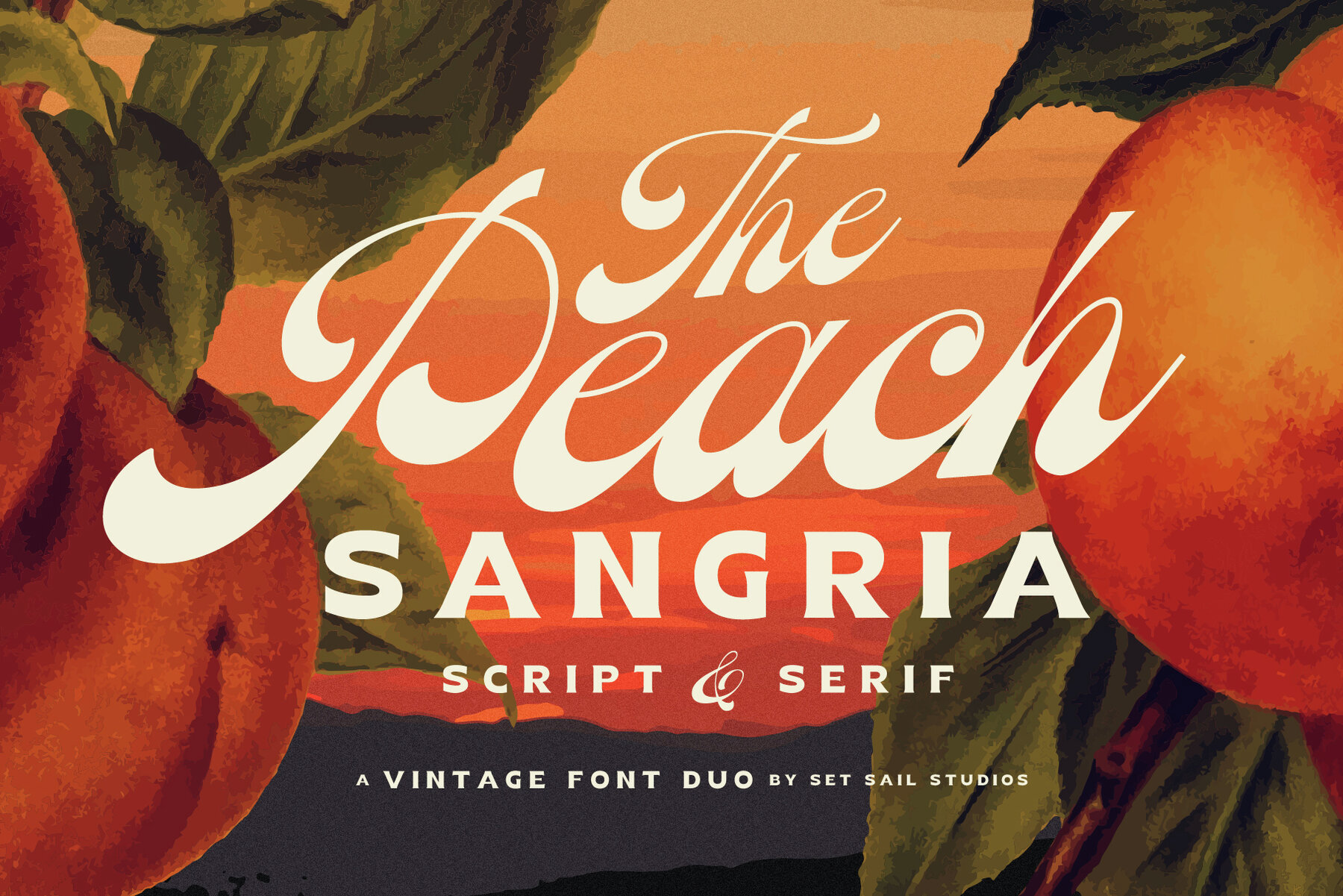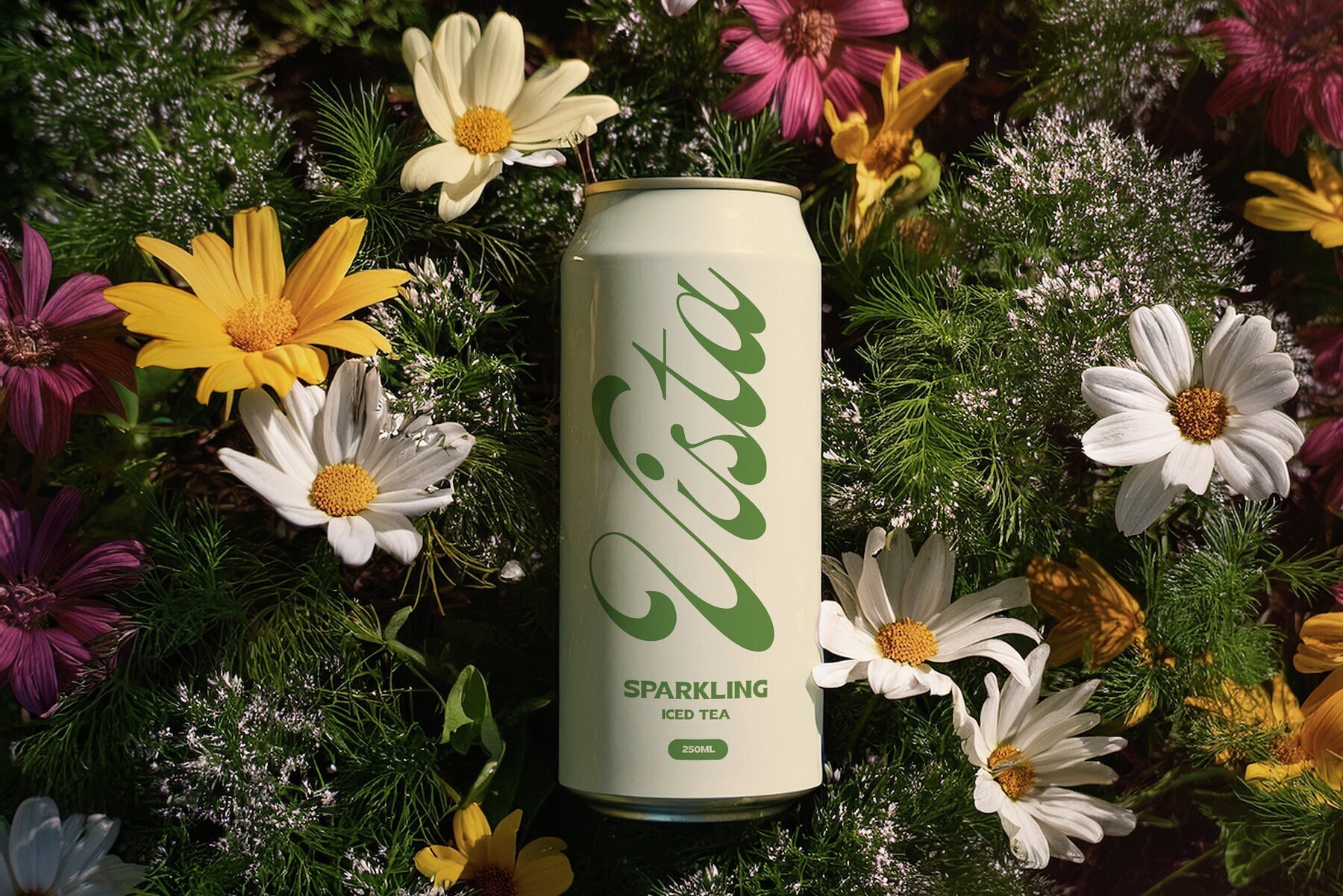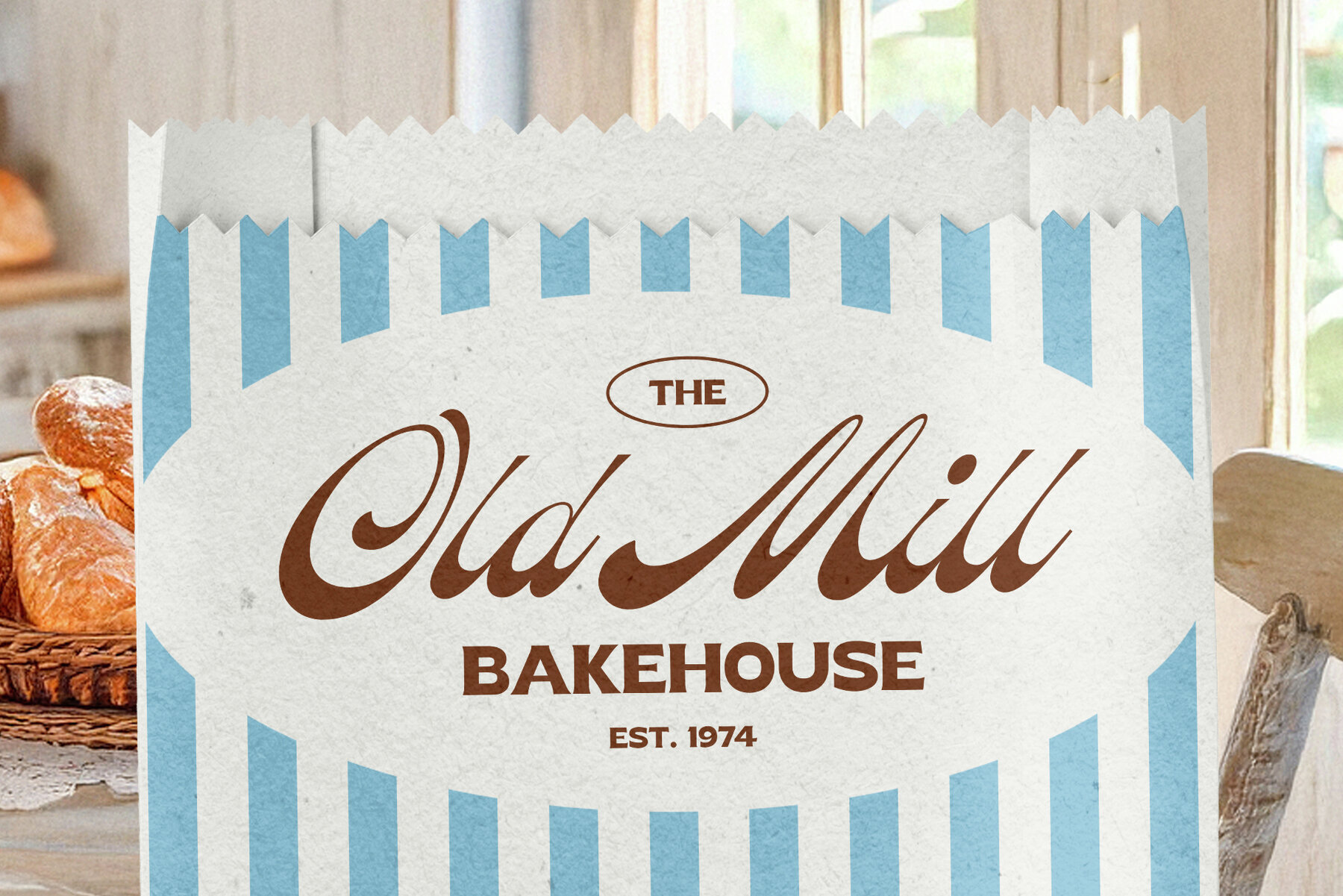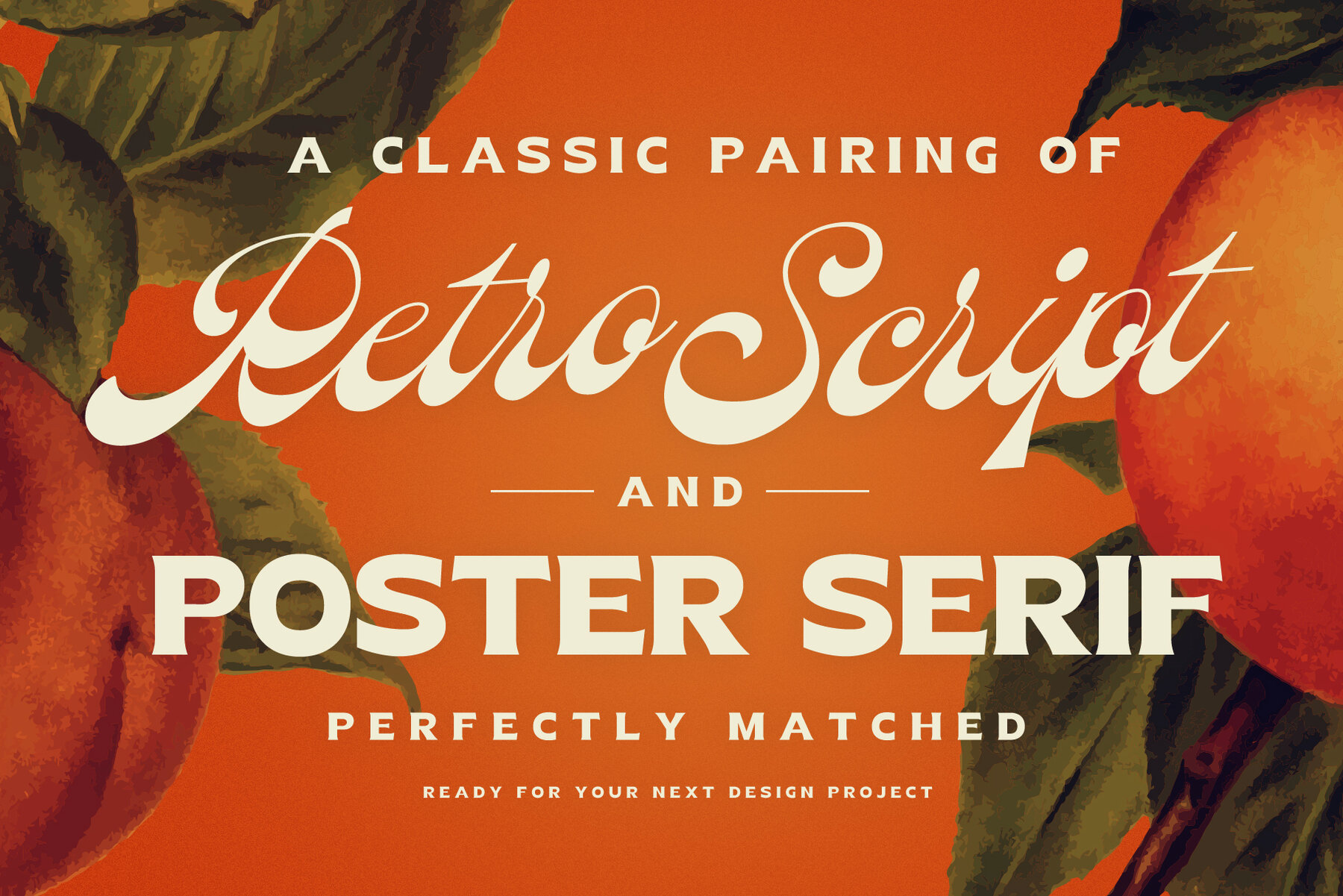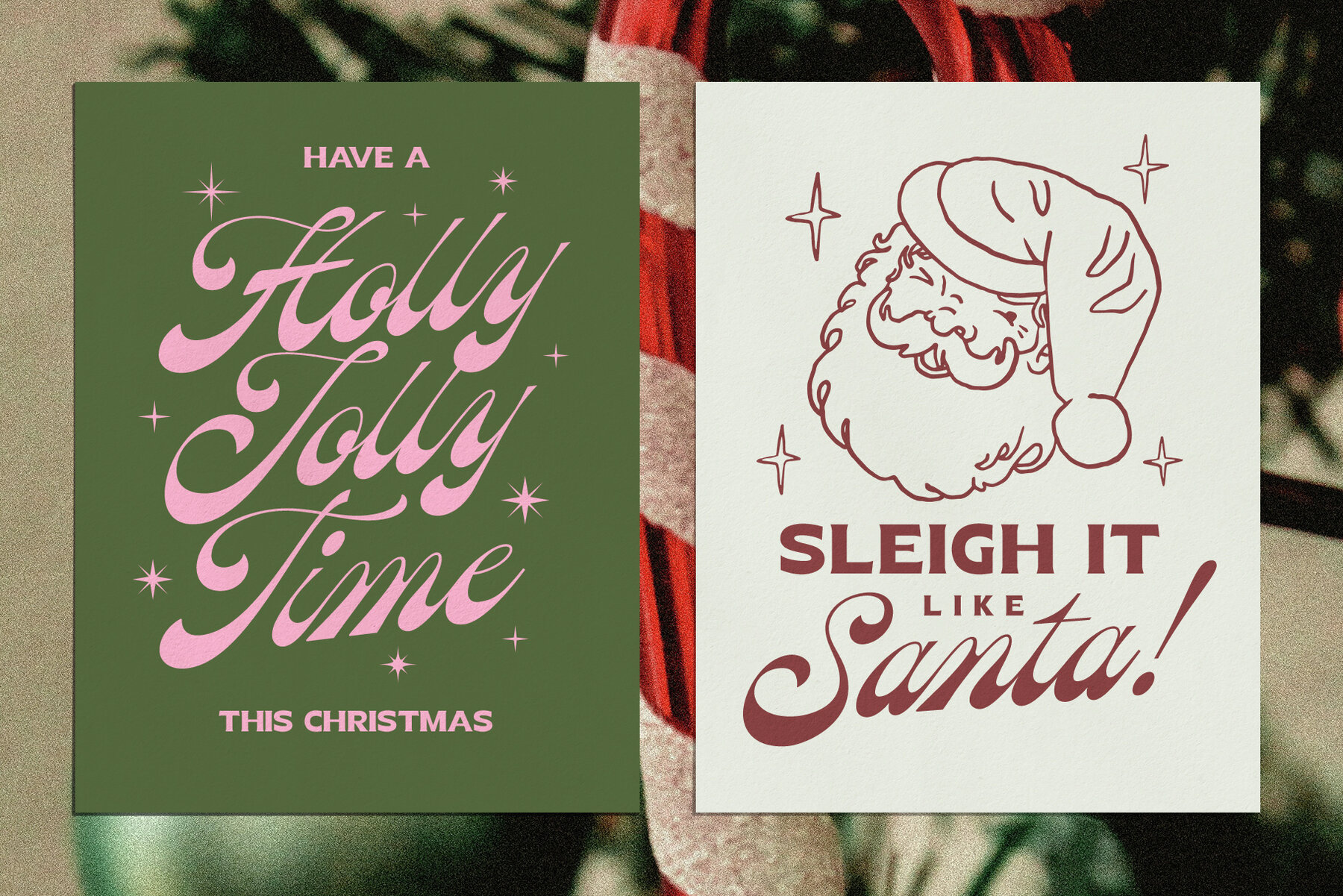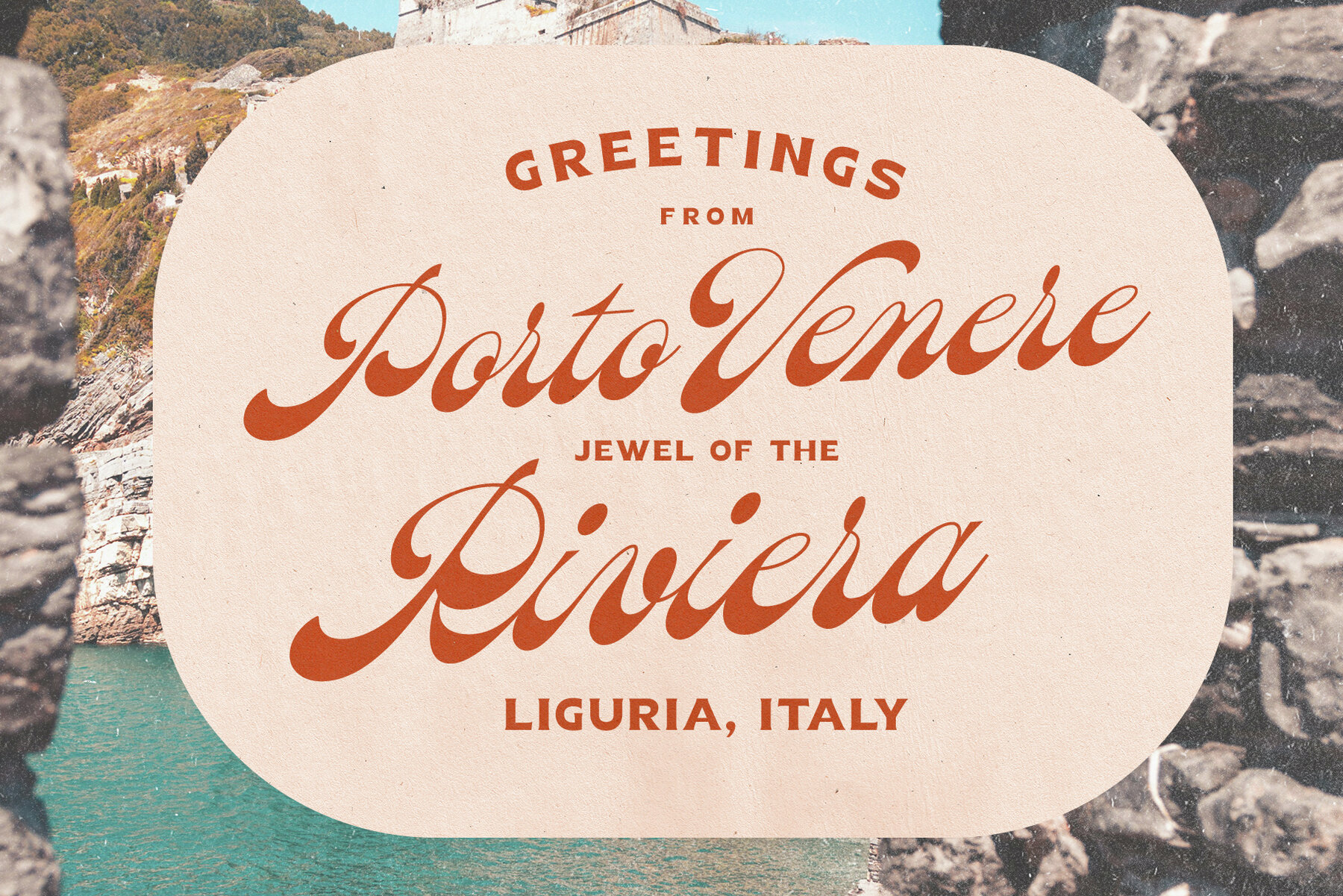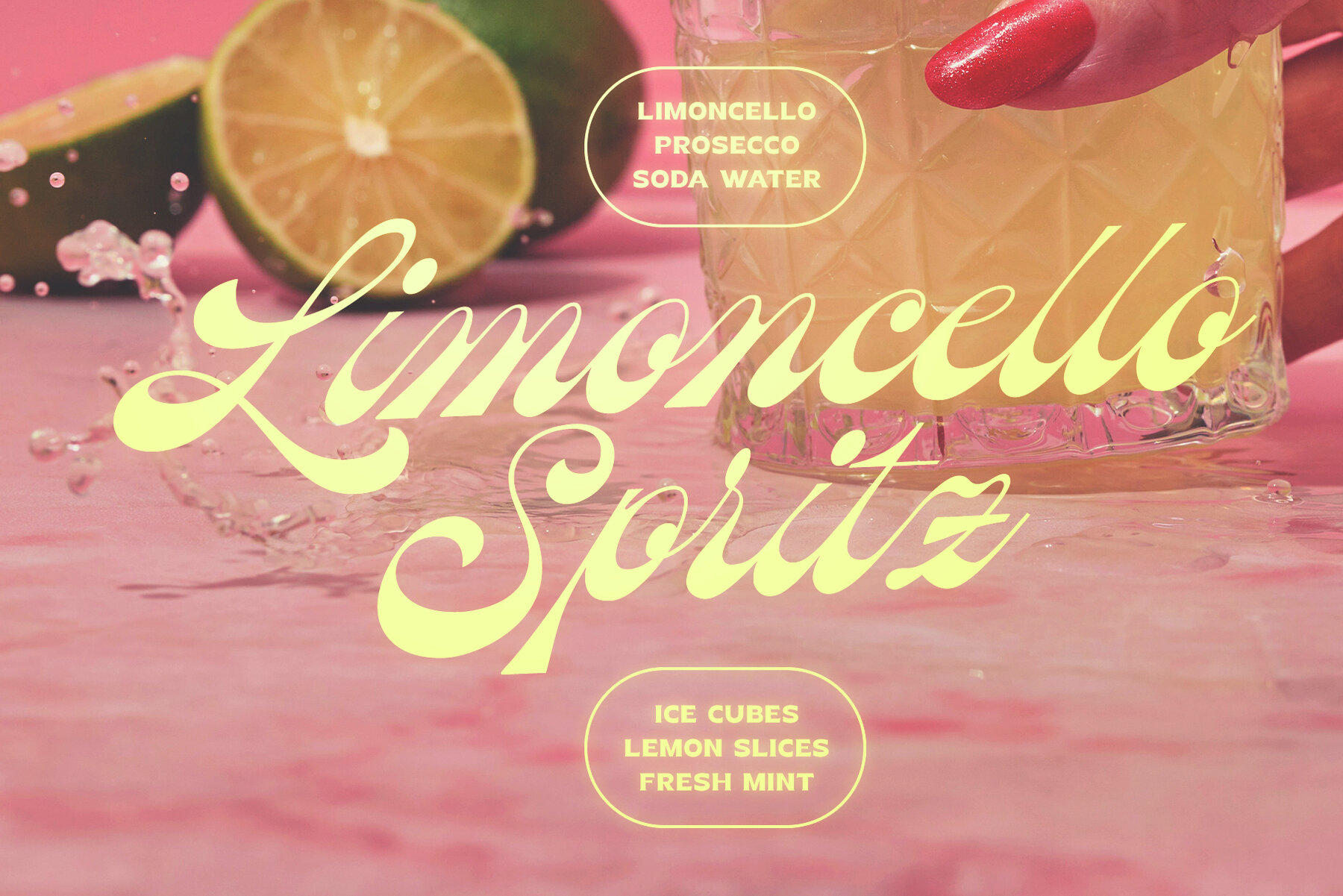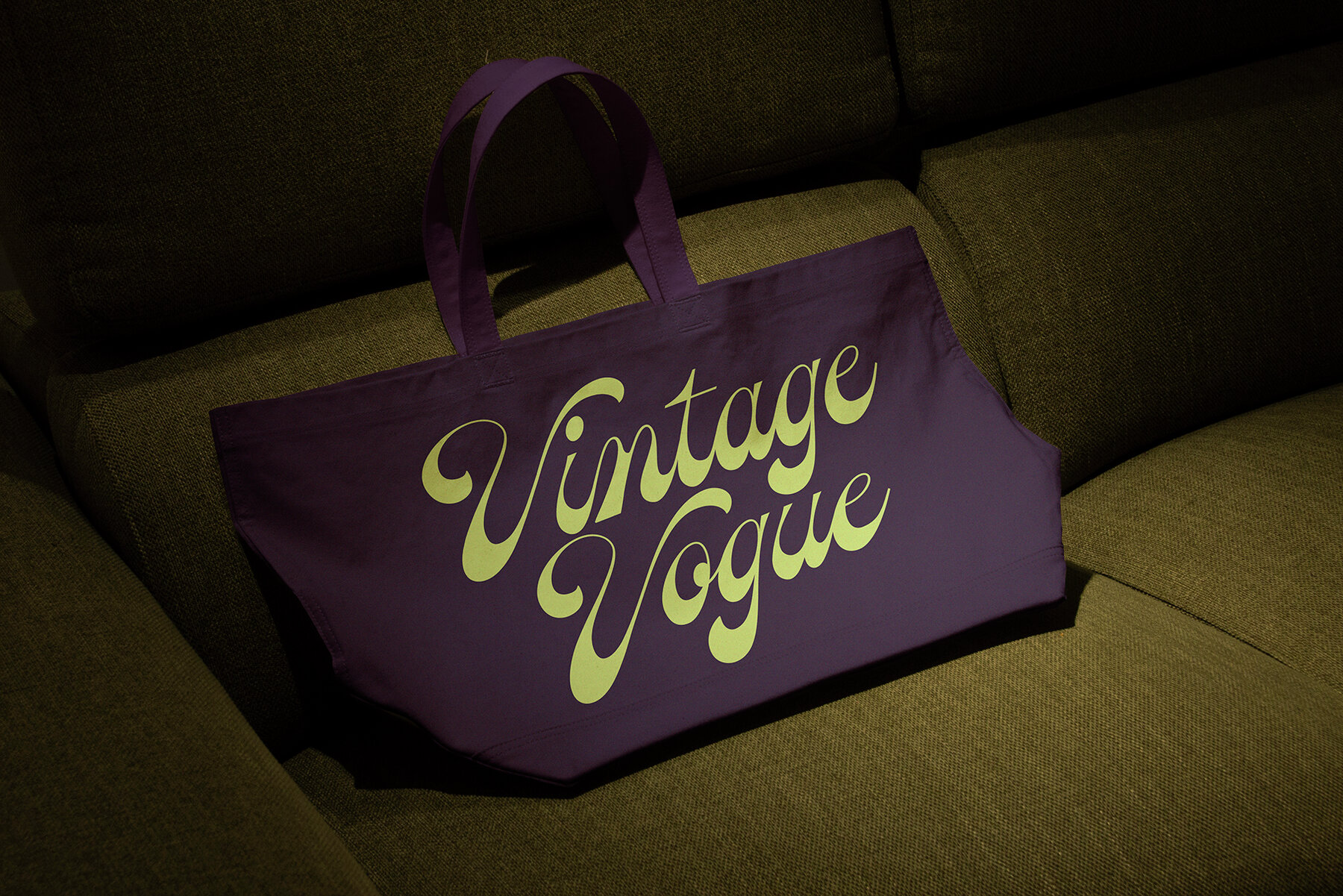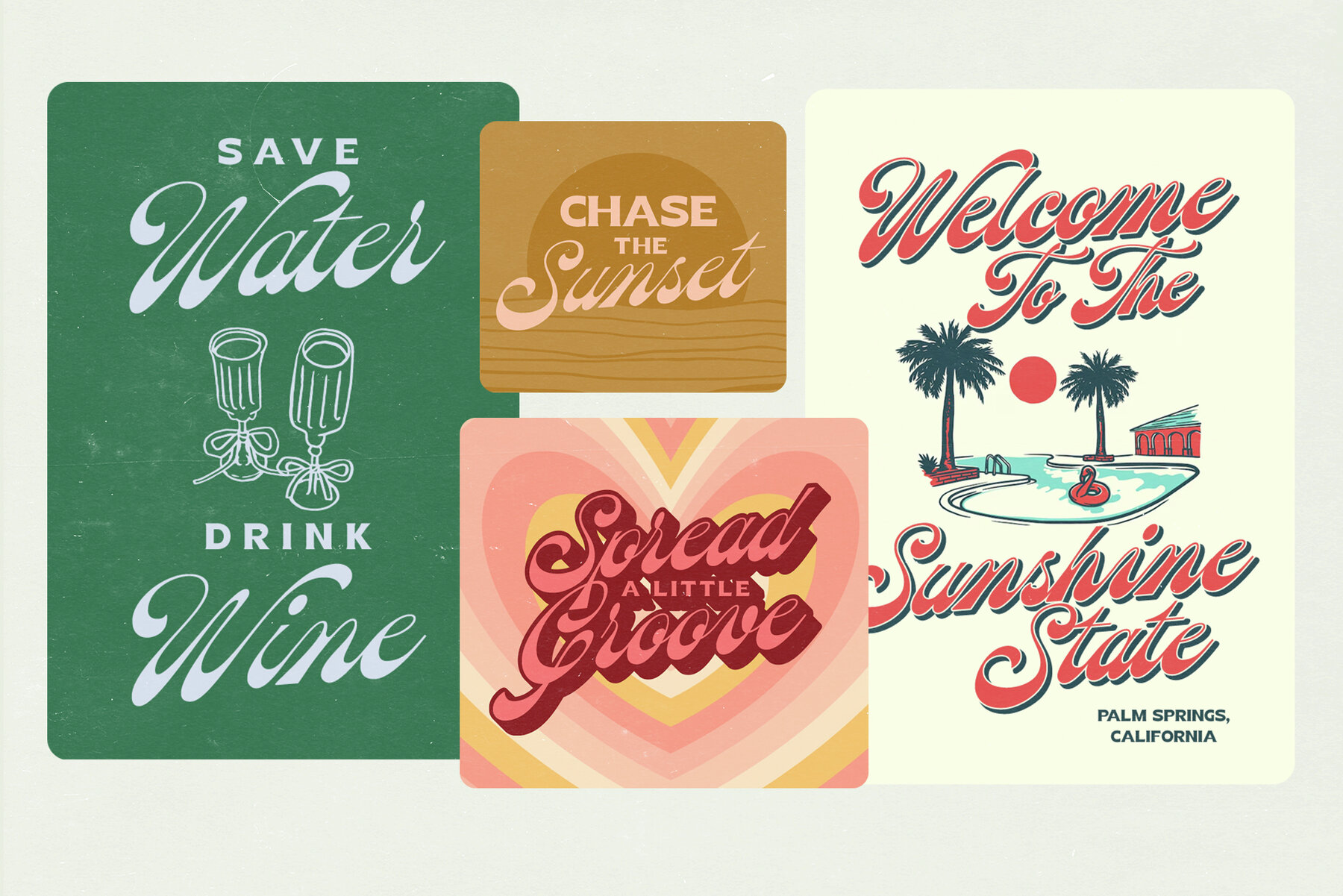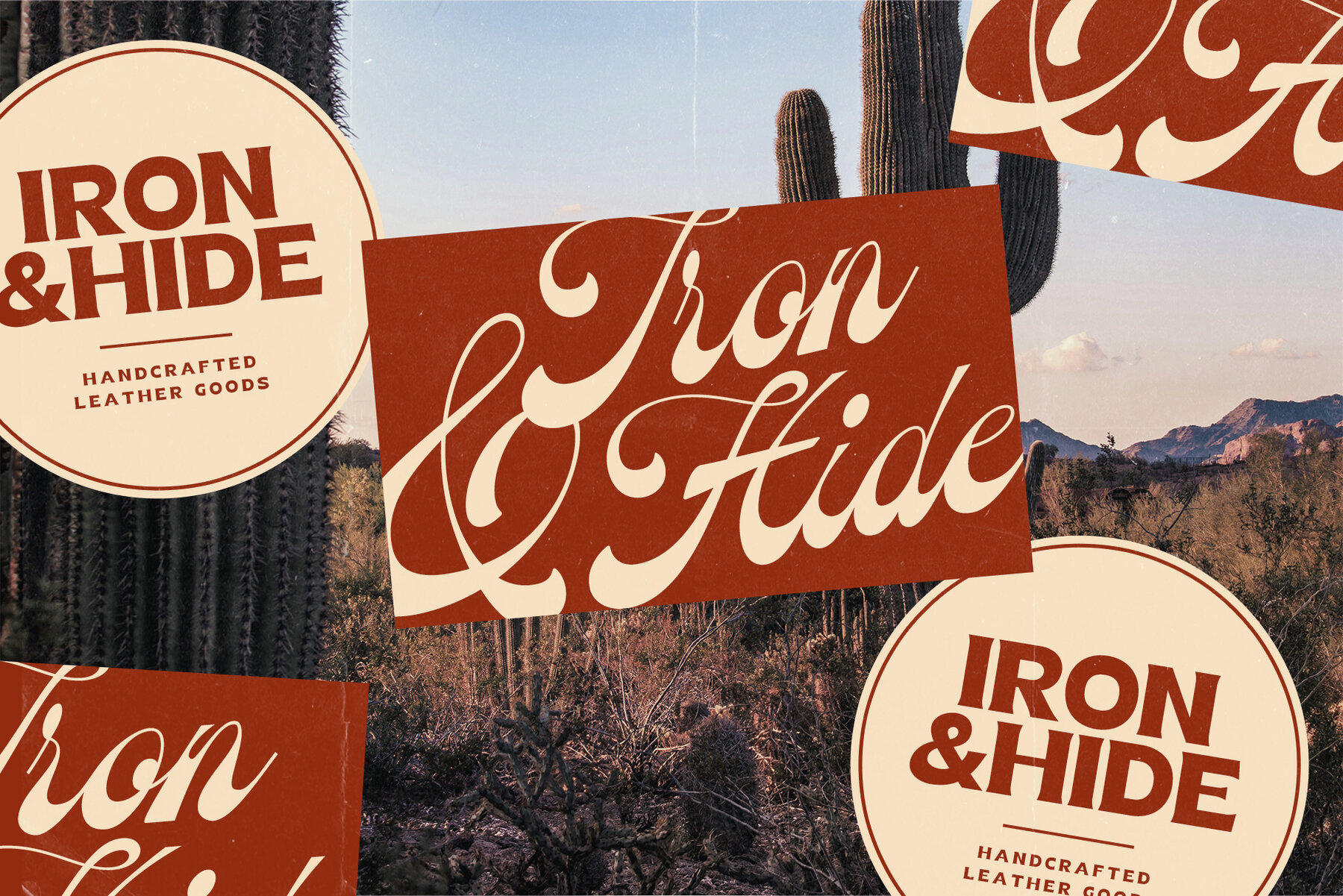
Peach Sangria Font Duo
Peach Sangria Script
Peach Sangria Serif
Discover the timeless elegance of the Peach Sangria Script and Serif font duo, inspired by retro design. This collection features a flowing, bottom-heavy script that shines in projects ranging from vintage logos to standout display text. Complementing the script is a bold, chunky Serif—a perfect counterpart that works beautifully whether you seek a strong partner or supportive sub-text. Together, these fonts offer versatile options for various design combinations.Peach Sangria Script and Serif: A Harmonious Duo
Features of the Peach Sangria Font Duo